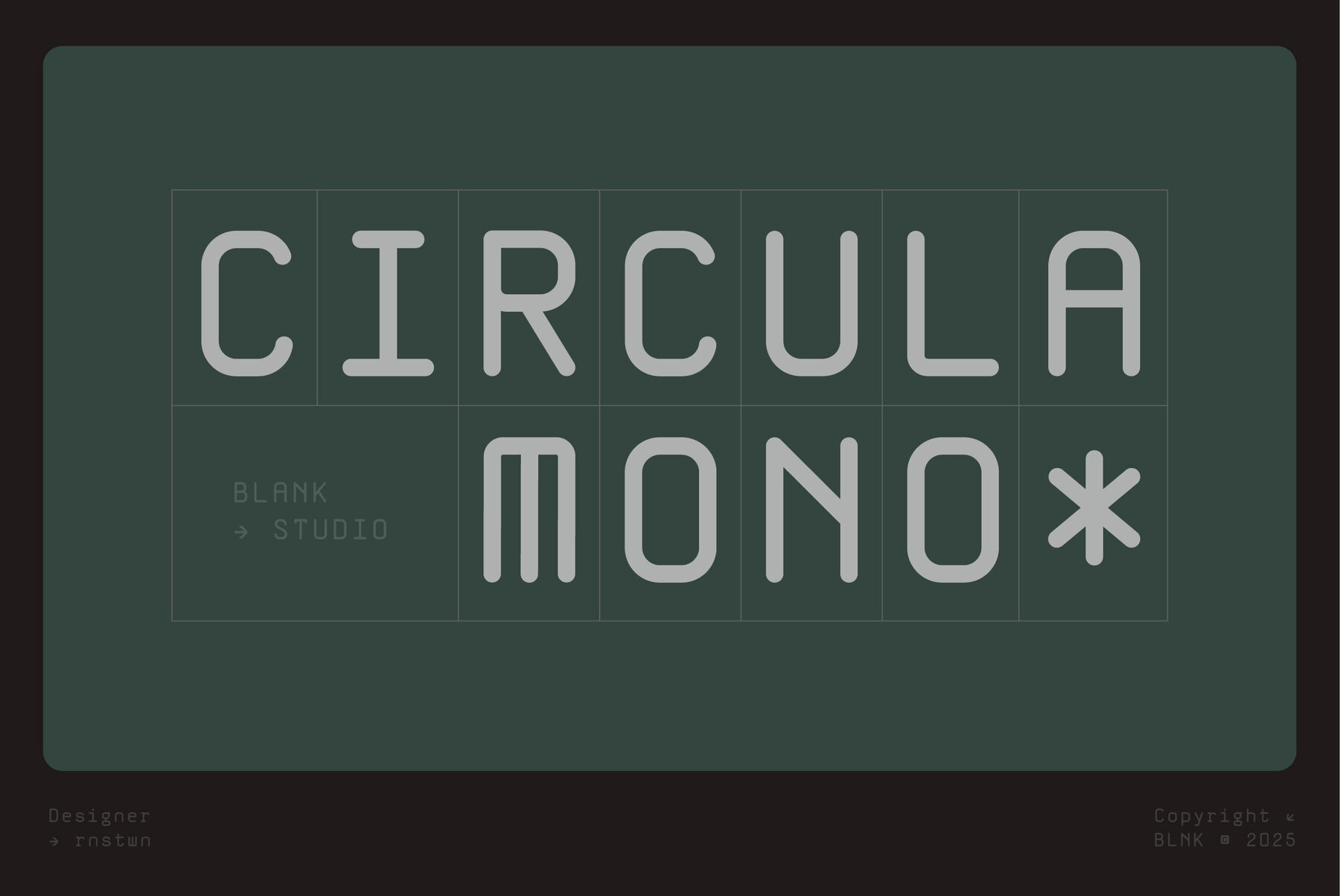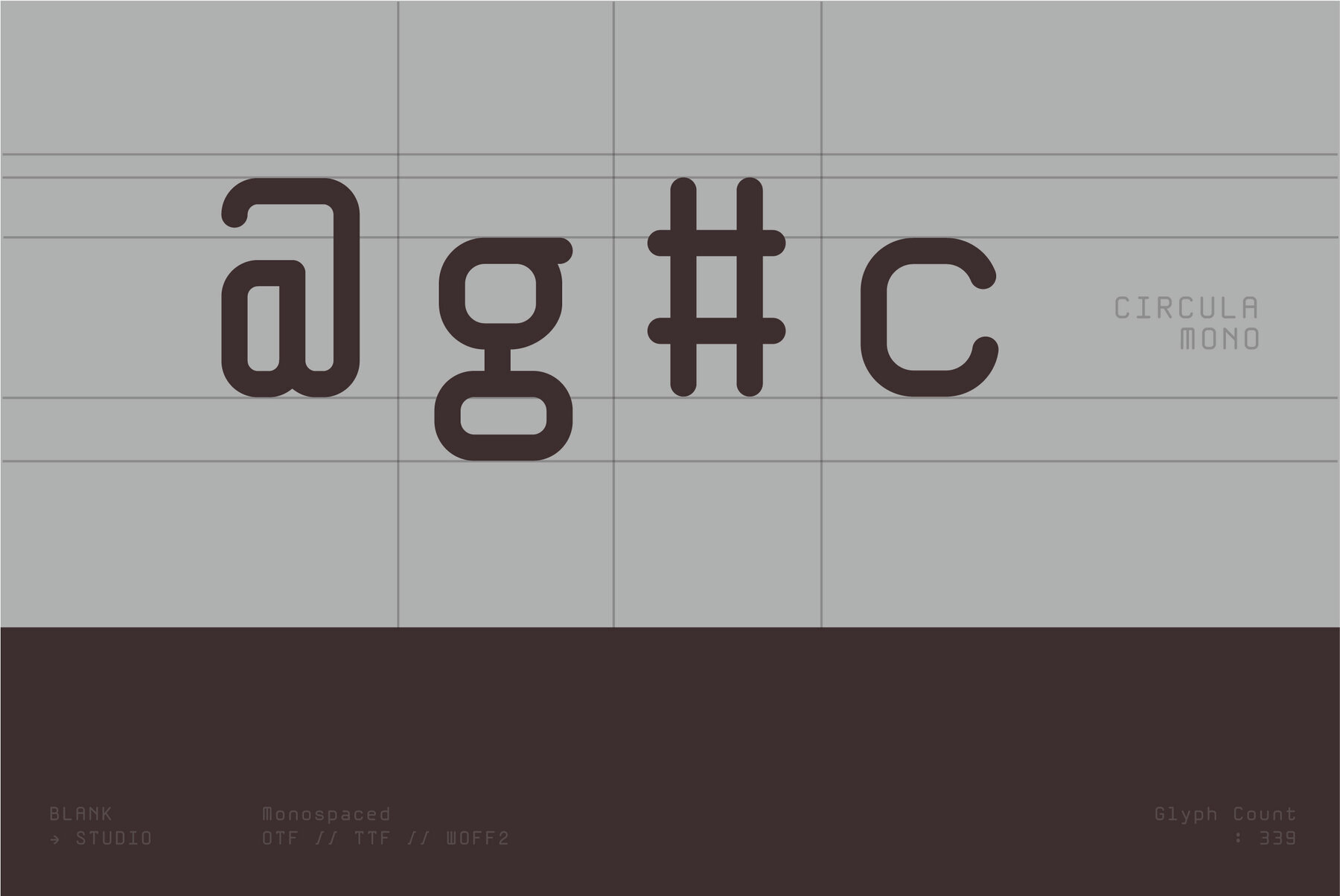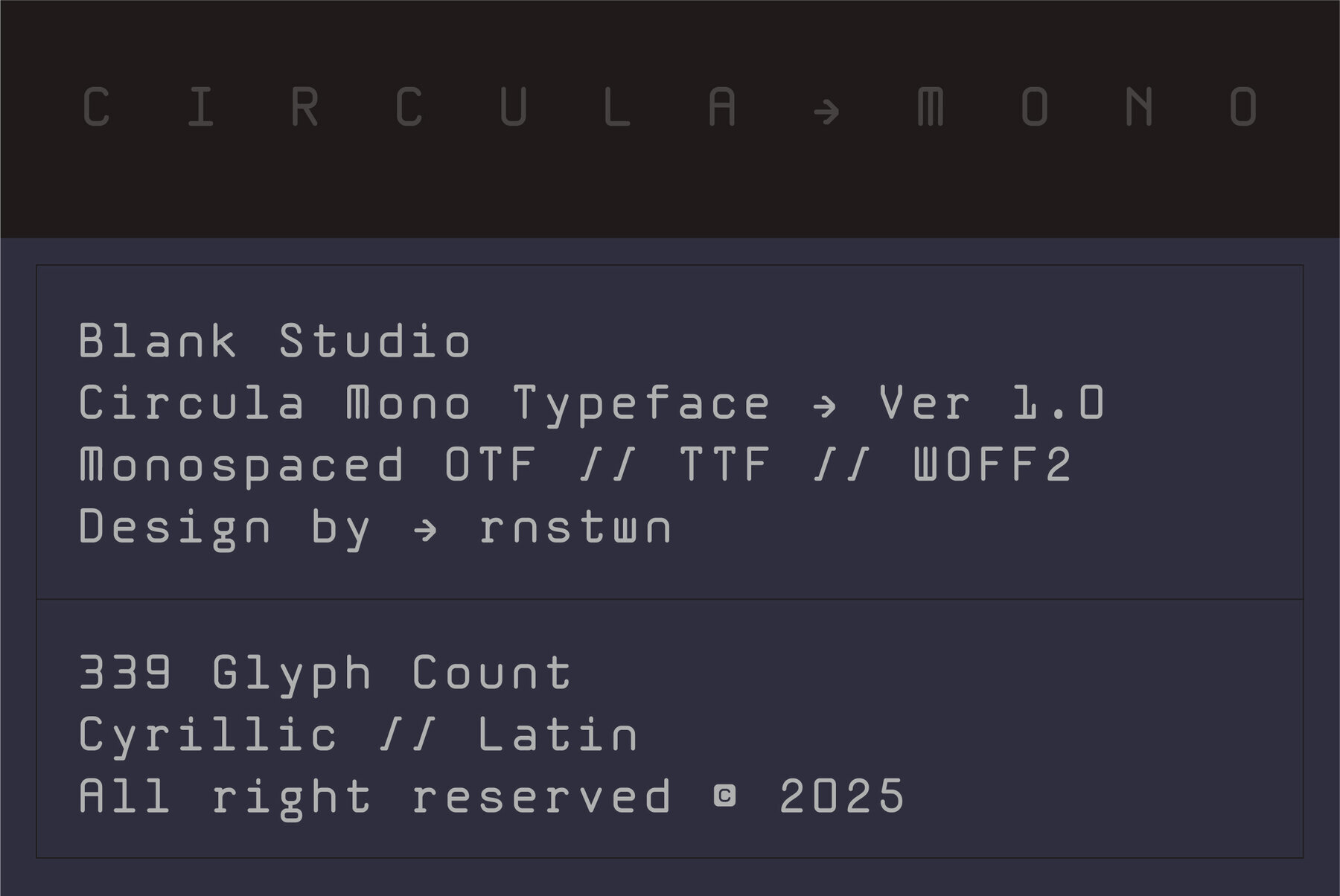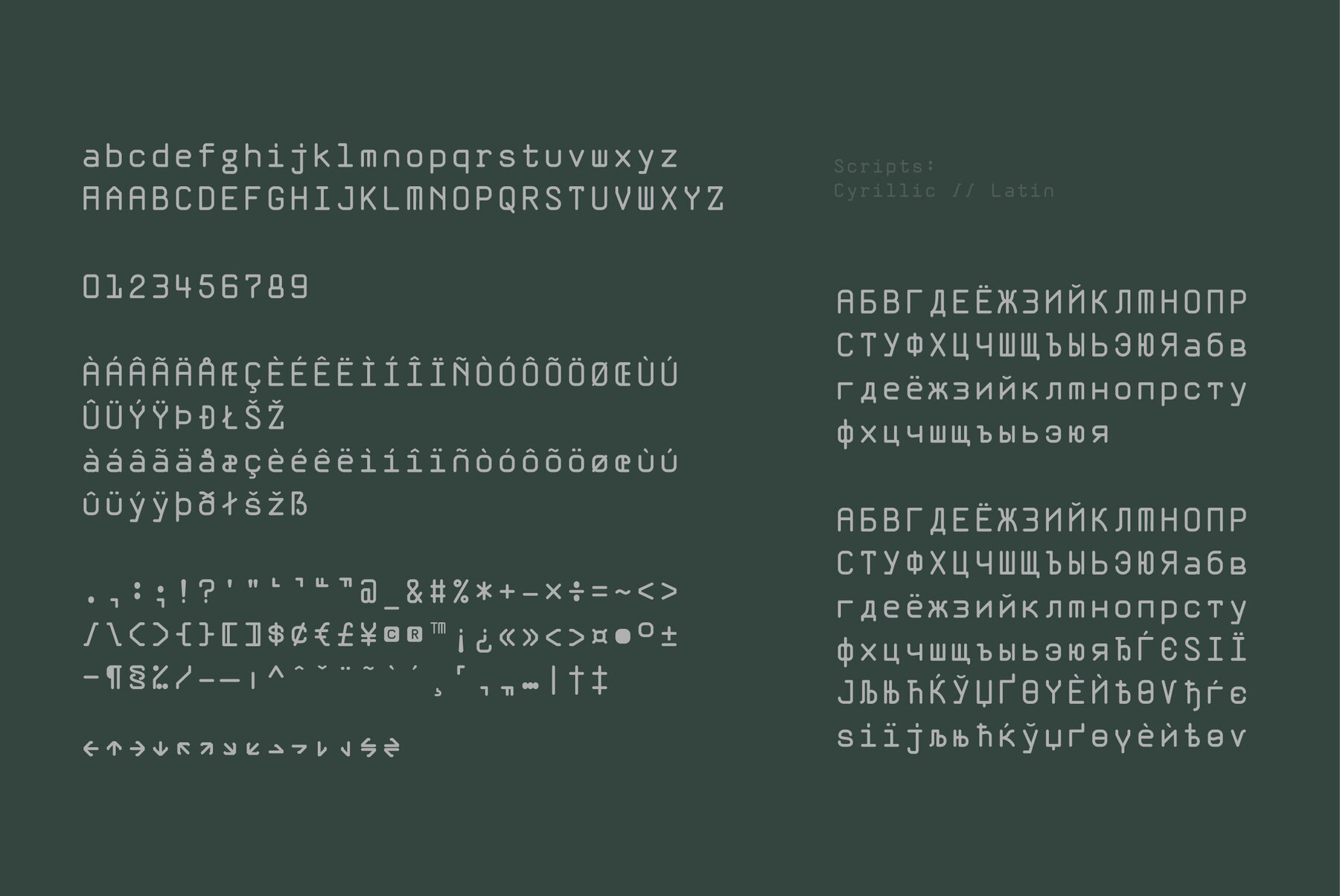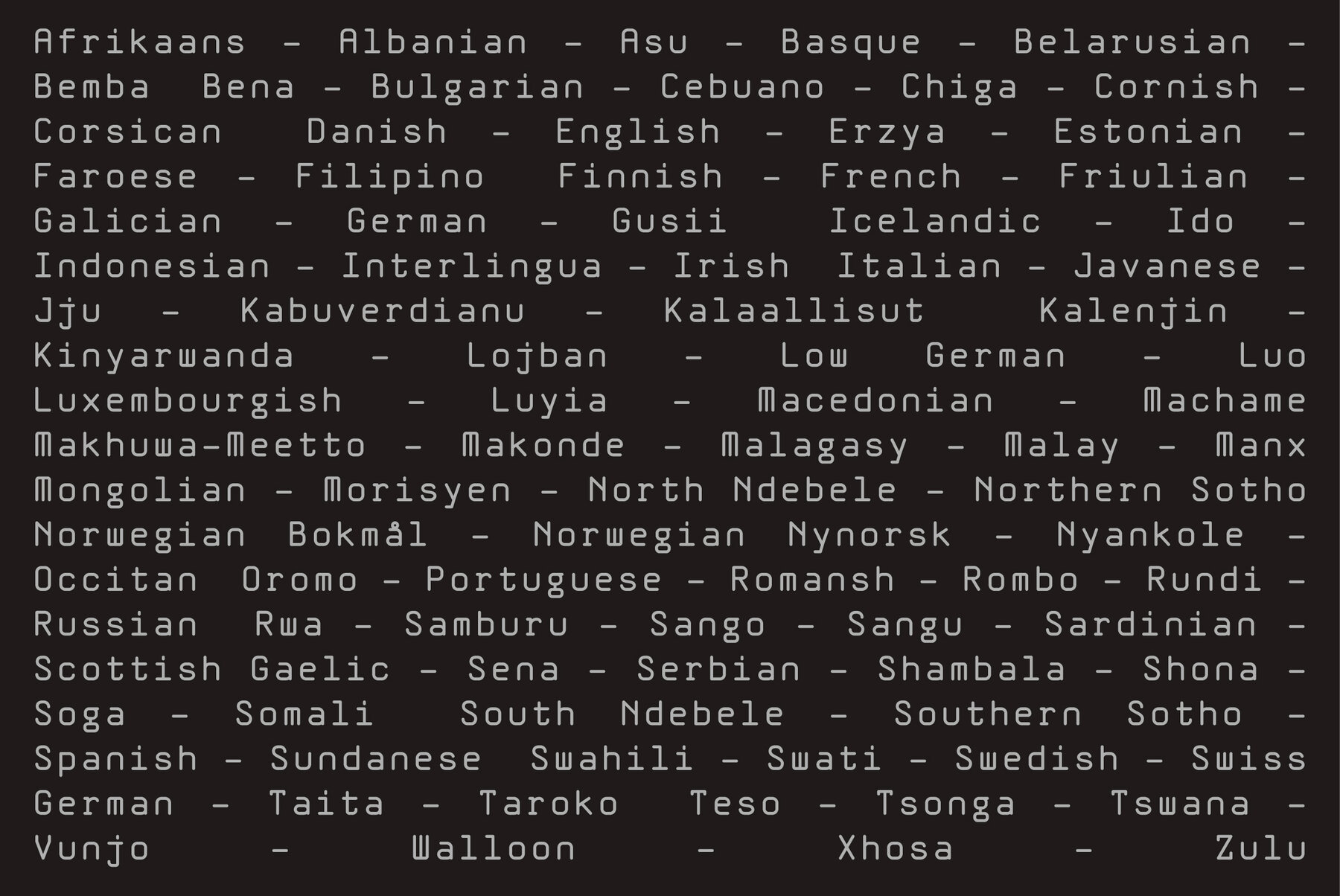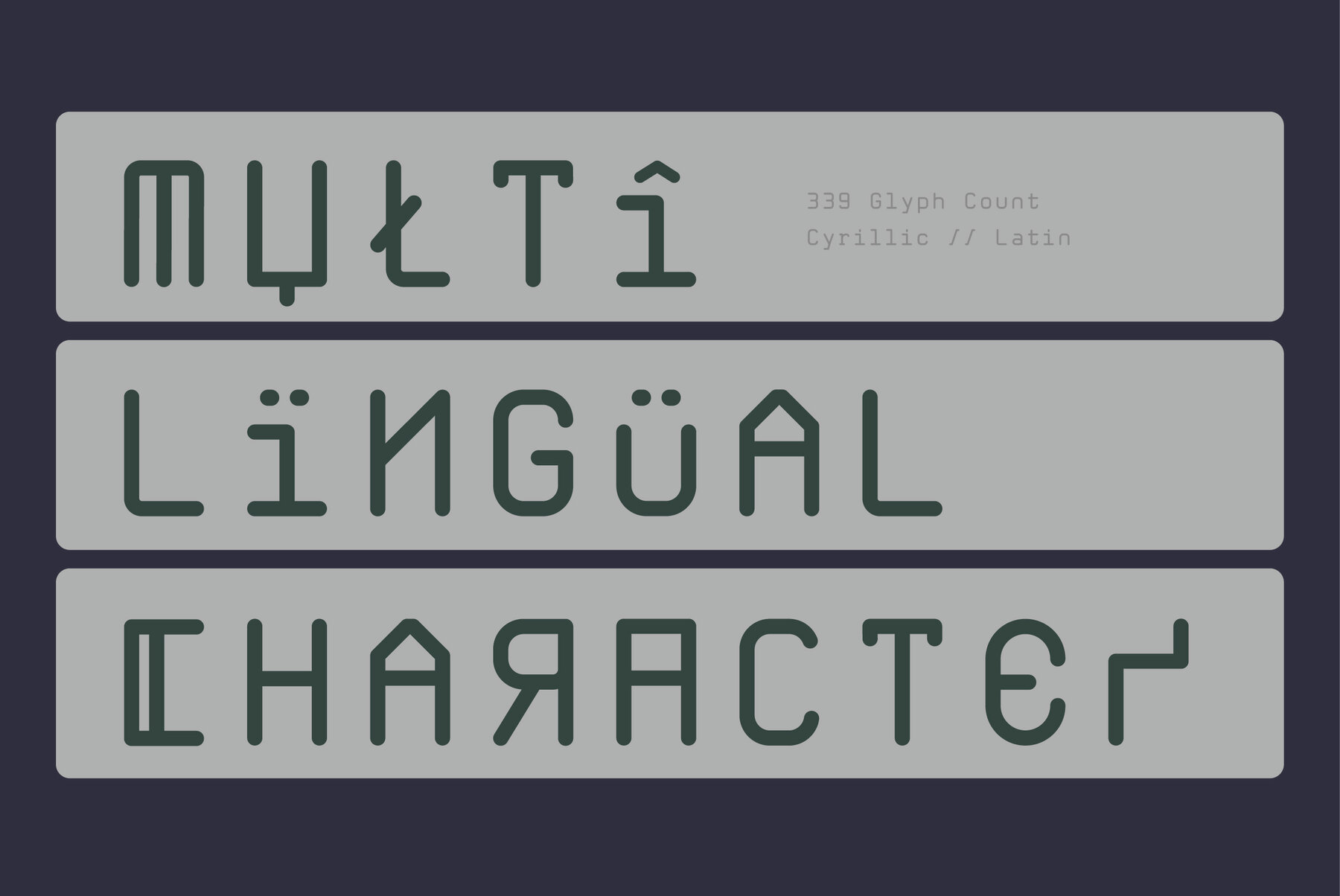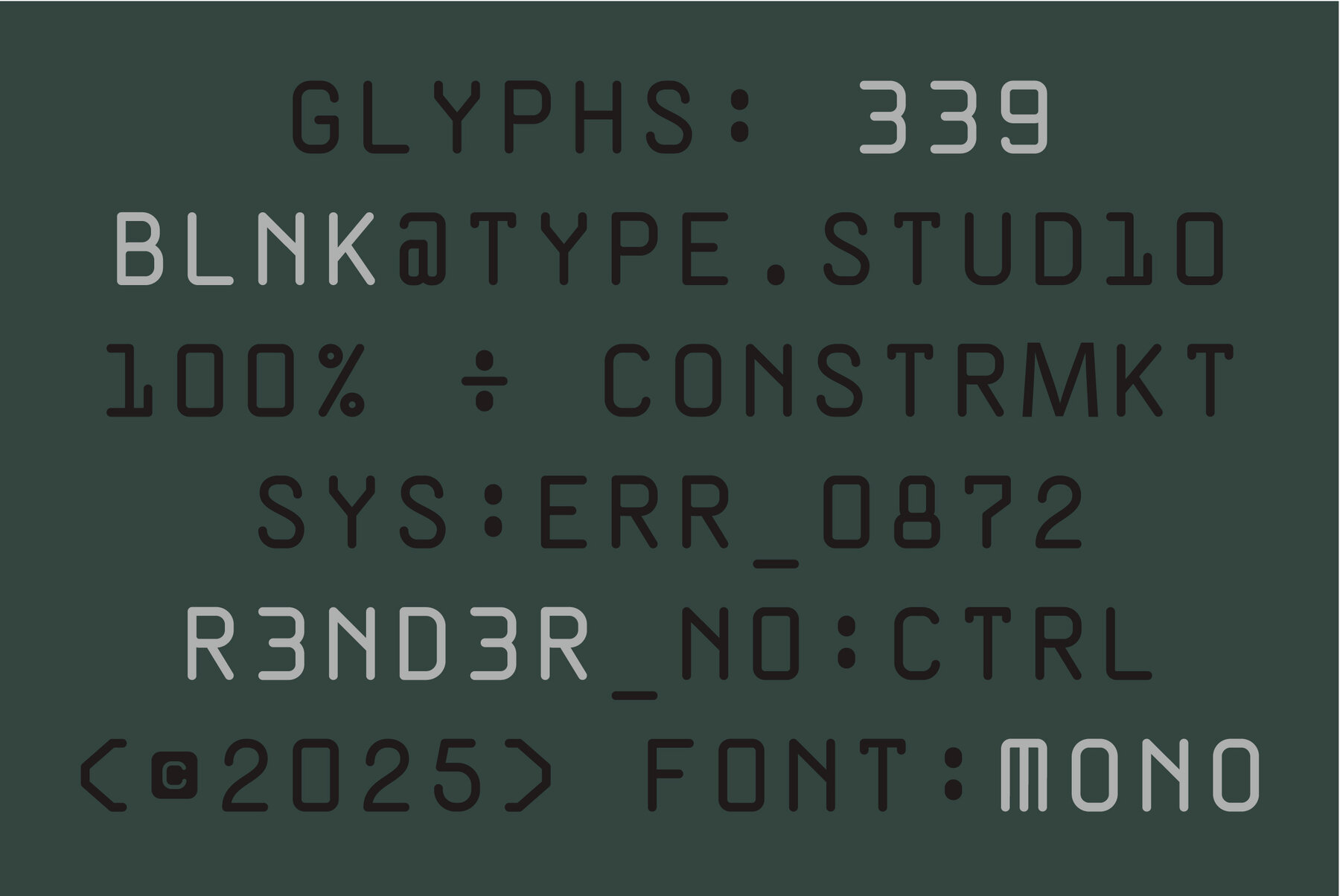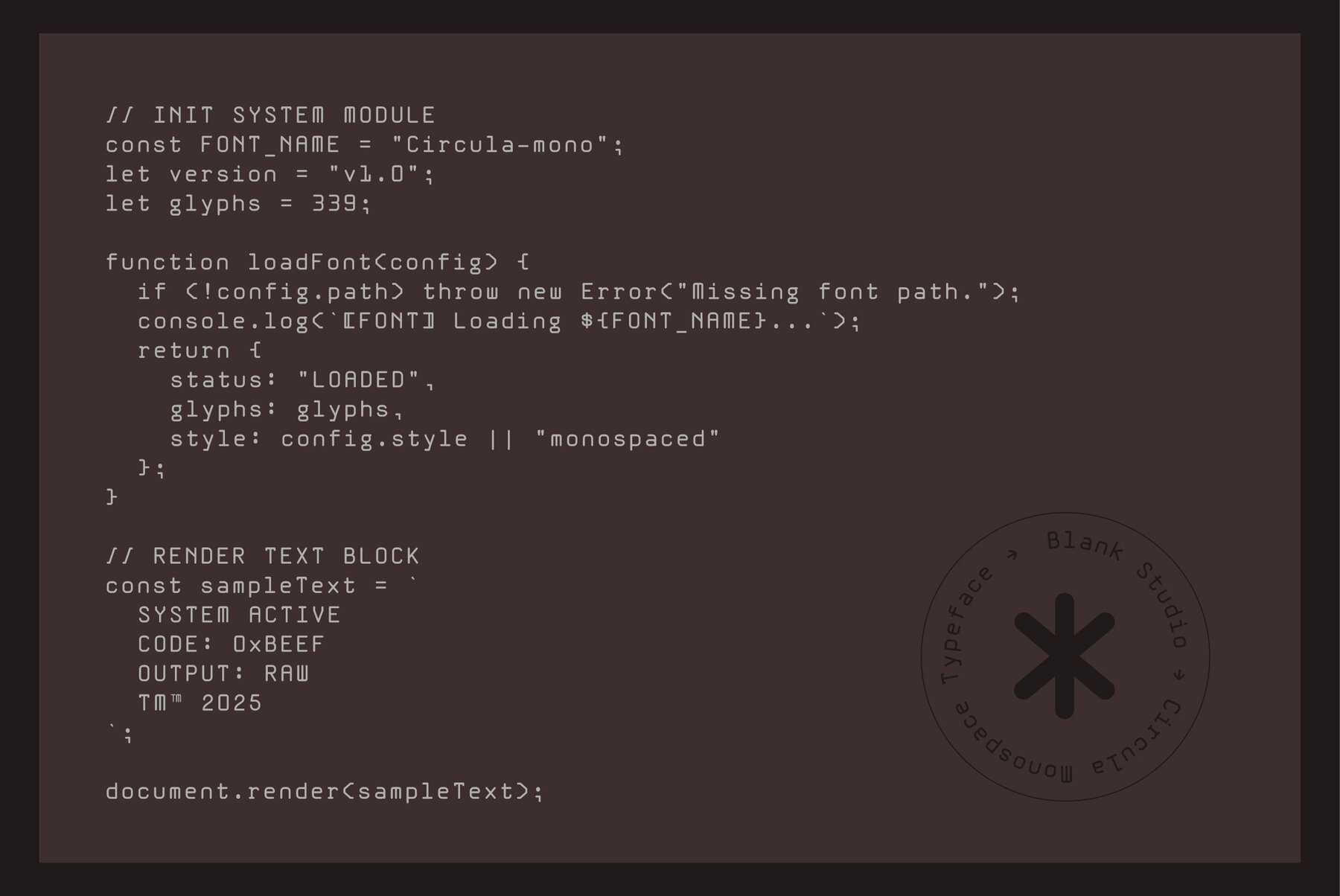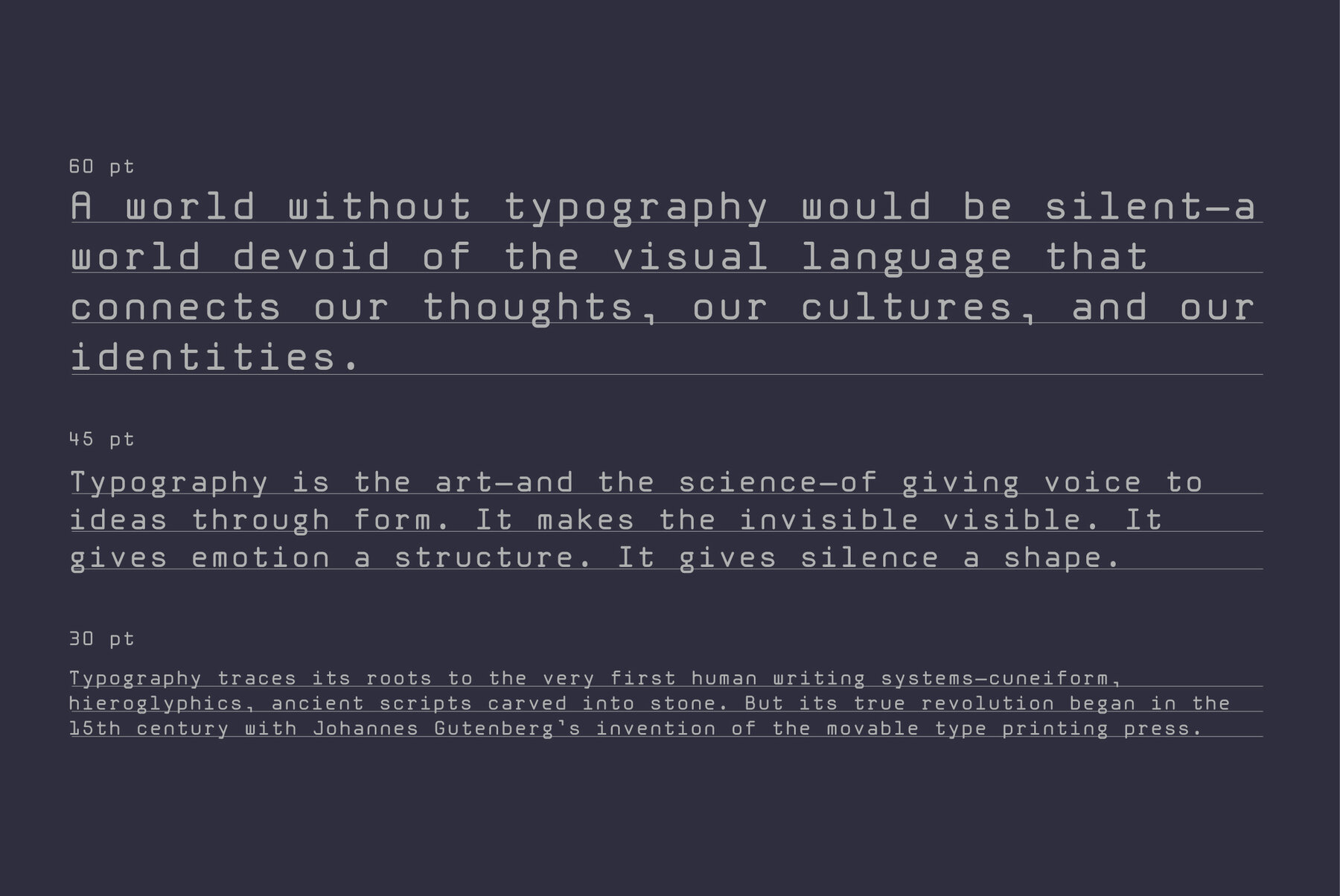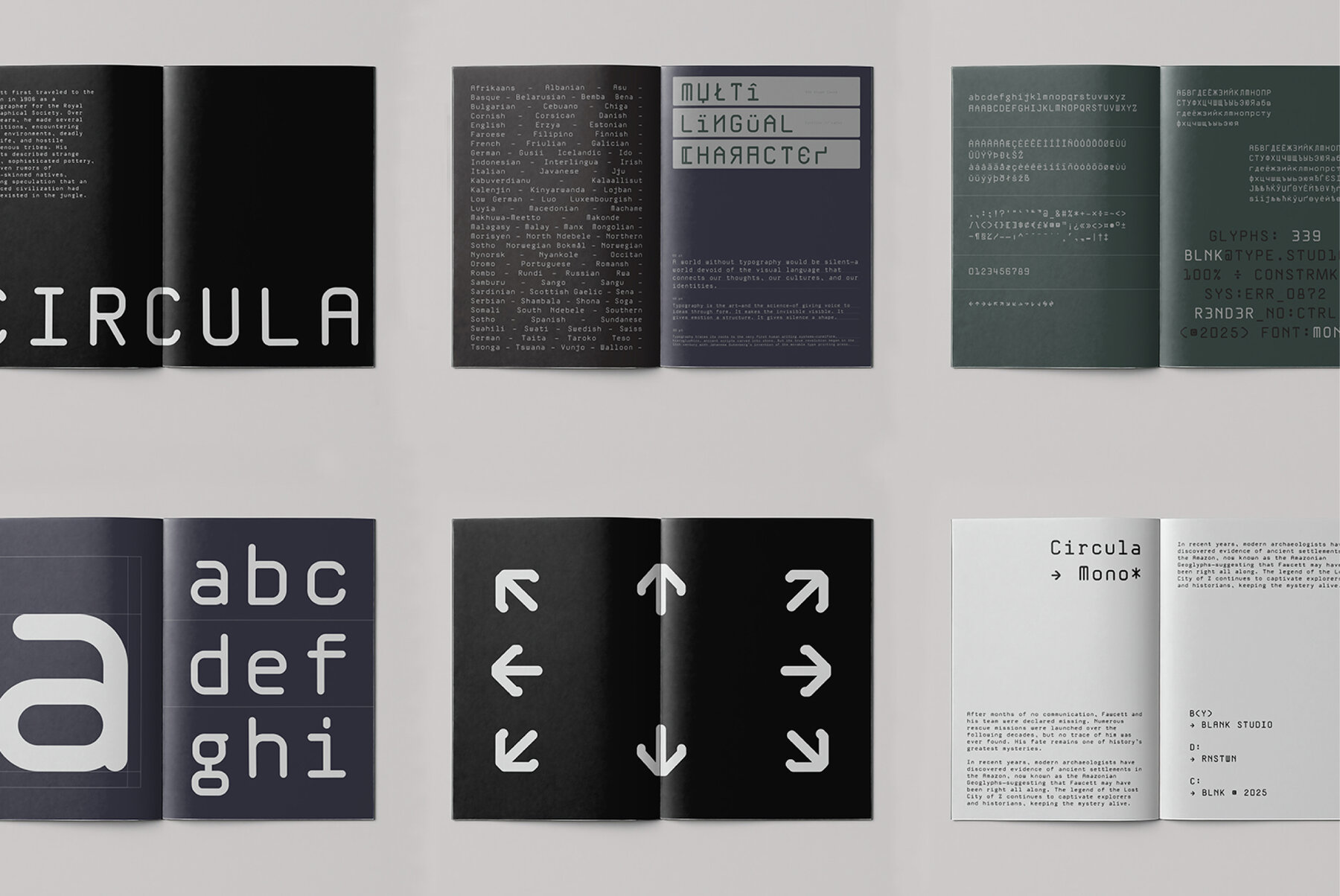
Circula Mono
Circula Mono presents a refreshing take on monospaced typefaces, merging geometric precision with softly rounded contours. Ideal for code, UI/UX applications, and forward-thinking branding efforts, its uniform width and impeccable grid structure ensure clarity, while the smooth terminals and circular motifs infuse an approachable charm. This typeface brings a touch of warmth to any digital design without compromising on functionality.Circula Mono: Harmonious, Rounded Monospaced Typeface
Applications and Aesthetic